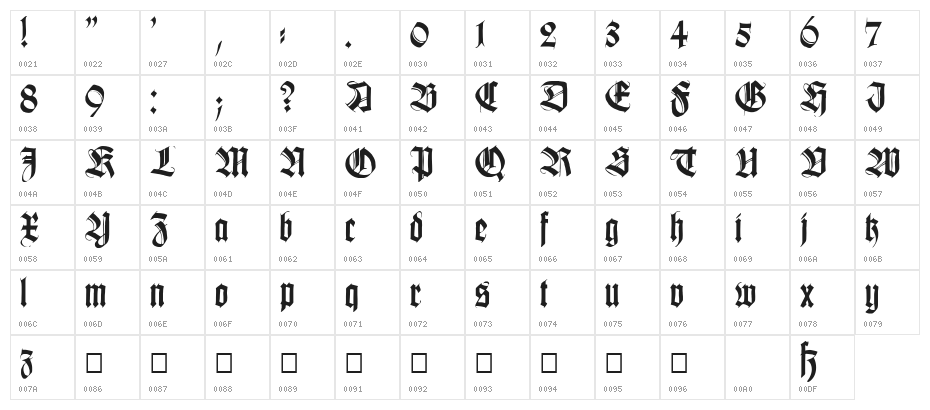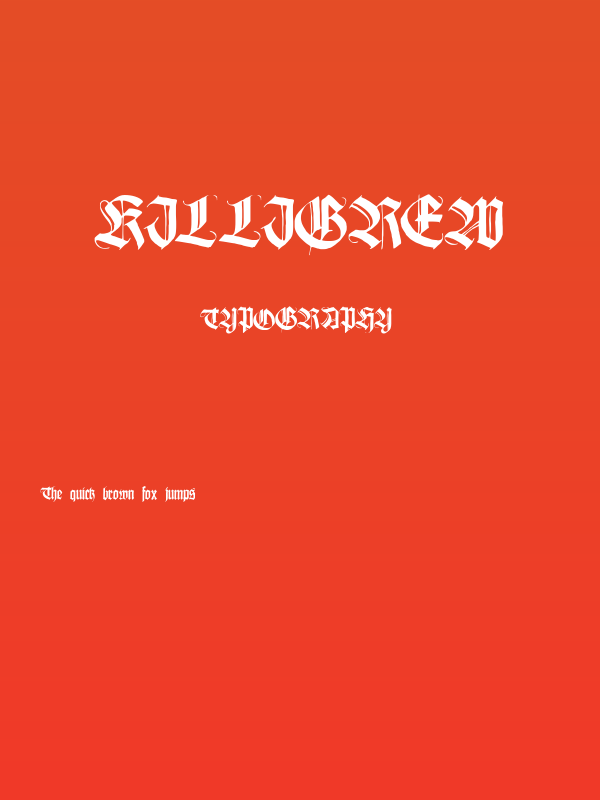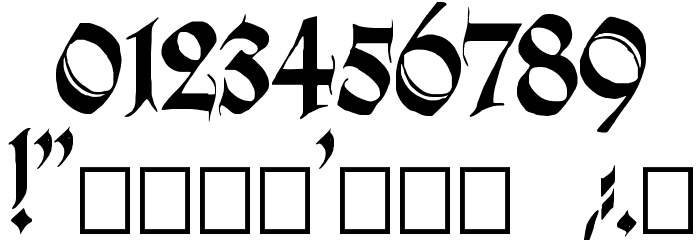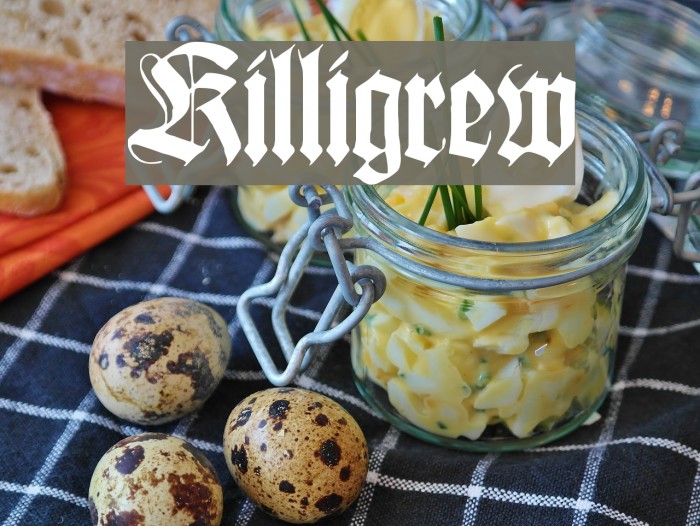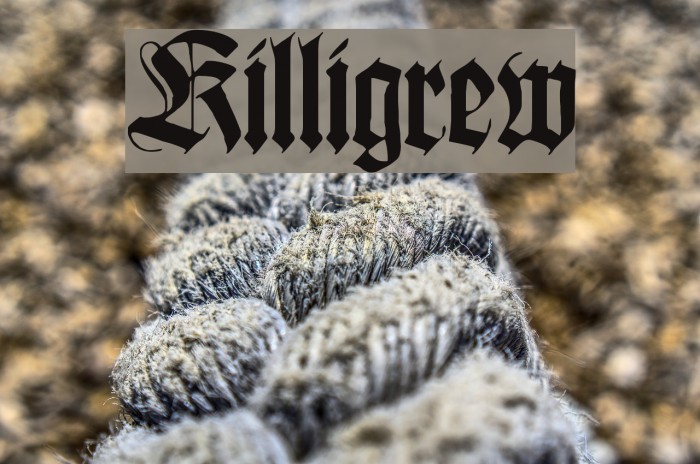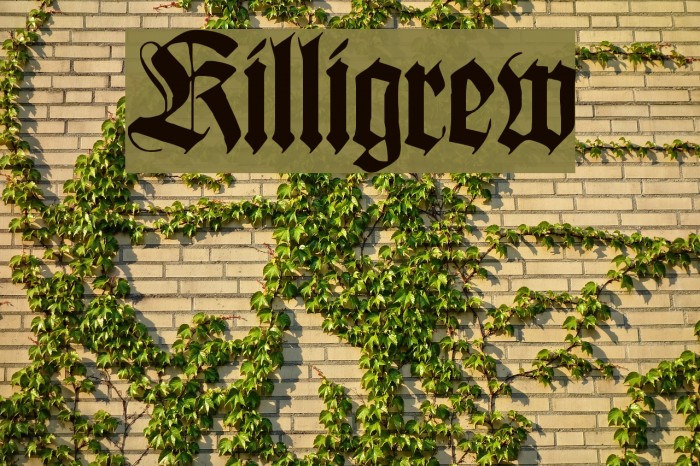
Killigrew Font
✎ Old fashioned
| Proiecte propuse | Ideal for use in historical documents, medieval-themed designs, book covers, posters, and branding that requires a gothic or vintage touch. |